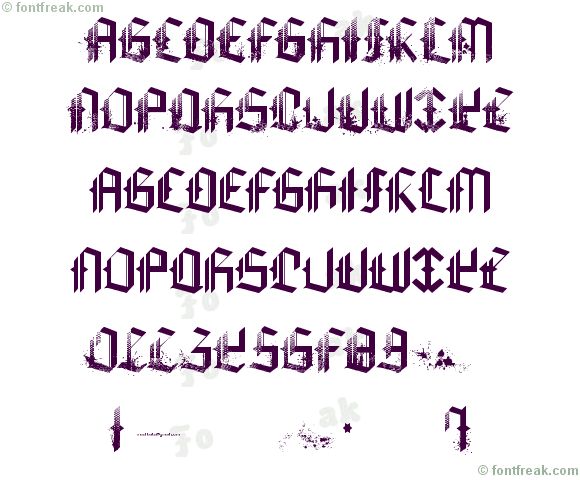
KILL THE PANDA
KILL THE PANDA by Maelle.K is a distinctive display font that captures attention with its unique character and playful spirit. This font is ideal for projects that require a bold statement, making it perfect for those looking to infuse a sense of fun and creativity into their designs. The visual style features an intriguing blend of sharp edges and playful curves, showcasing an eclectic mix of stroke weights that evoke a sense of movement. The letters exhibit a rough, textured appearance, adding a layer of depth and personality, while the spacing is thoughtfully designed to ensure legibility even in larger sizes.
This font shines in a variety of specific use cases, such as eye-catching movie posters, vibrant event flyers, and adventurous branding for cafes or restaurants. Its playful vibe also makes it suitable for children's products, party invitations, and merchandise aimed at a youthful audience. The KILL THE PANDA font free download option allows graphic designers, small business owners, and content creators to easily incorporate this unique typeface into their projects without breaking the bank.
The target audience for KILL THE PANDA includes creative professionals who appreciate unconventional design elements that stand out from the crowd. Its bold and whimsical character invites experimentation, making it a versatile choice for those looking to make a memorable impact. What sets KILL THE PANDA apart is its ability to blend fun with functionality, enabling designers to express a vibrant personality while maintaining clarity. This font is not just a typeface; it’s a creative tool that empowers users to craft visually striking compositions that resonate with their intended audience, ensuring that any project featuring KILL THE PANDA will leave a lasting impression.